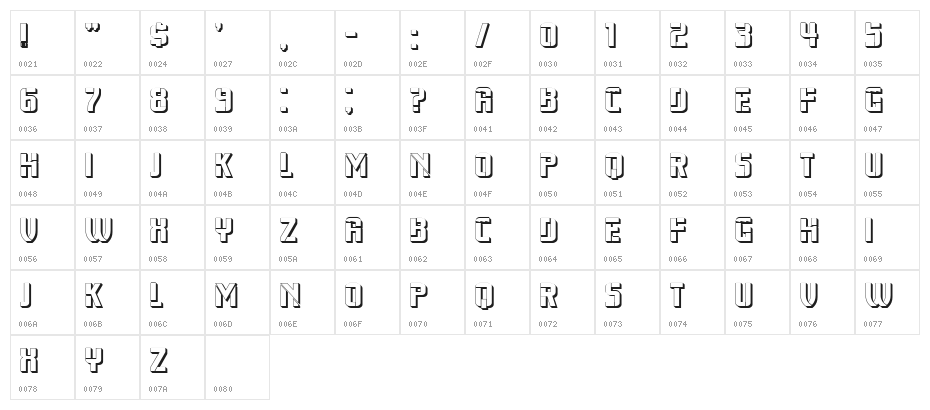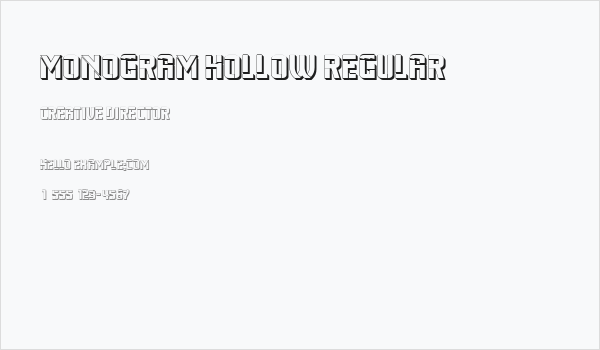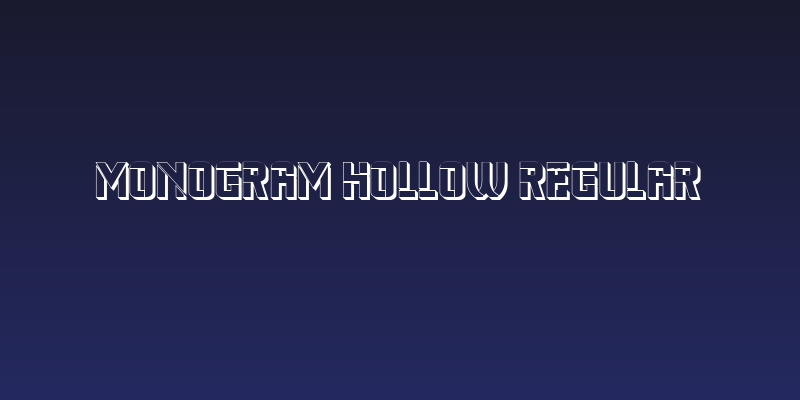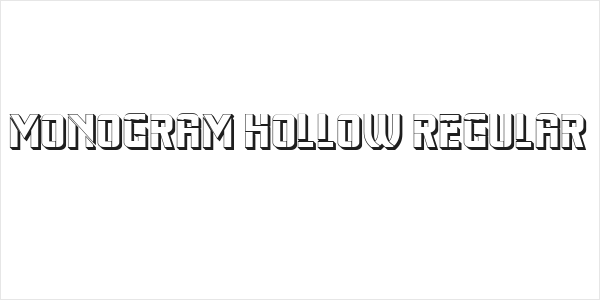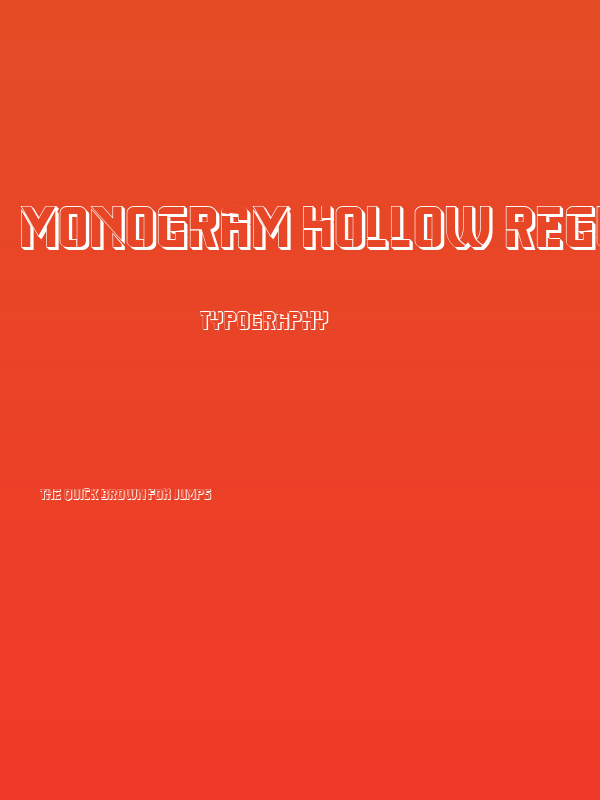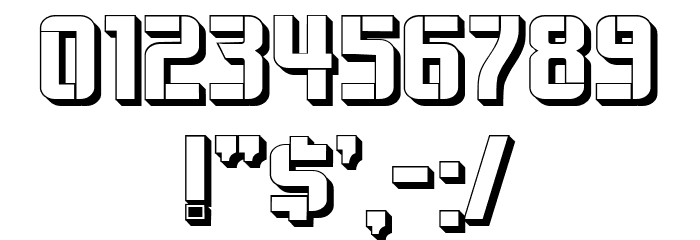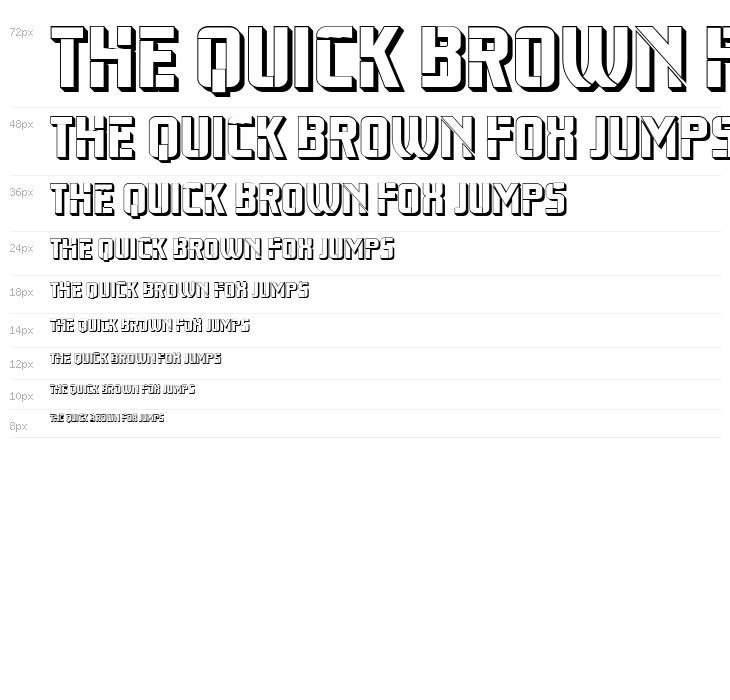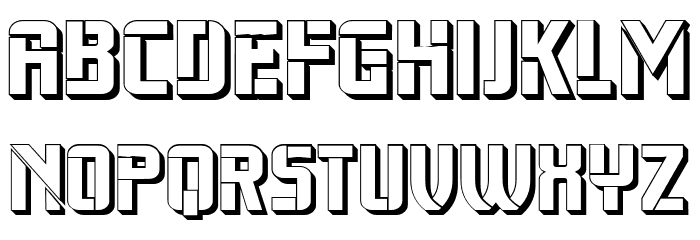
Monogram Hollow Regular Font
Monogram Hollow Regular Description
This font features a bold, hollow design with a three-dimensional effect, giving it a striking and modern appearance. The characters are uppercase and numerals, with a consistent geometric style that emphasizes clean lines and sharp angles. The hollow interior of each letter adds depth and visual interest, making it ideal for eye-catching designs. The font maintains uniformity in its structure, with each character displaying a balanced width and height. The special characters are designed to match the bold and hollow aesthetic, ensuring a cohesive look across all elements.
| Proposed Projects | Ideal for logos, posters, headlines, and any design requiring a bold and modern aesthetic. |